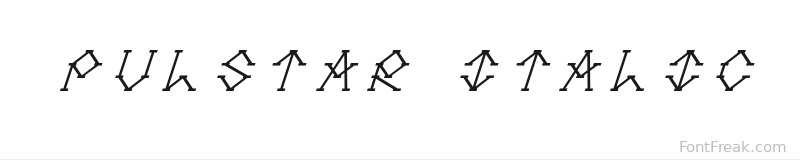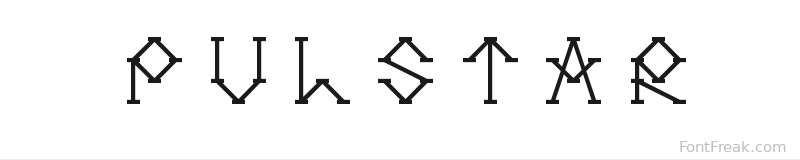
Pulstar
Pulstar Italic
Pulstar, designed by GGBot, is a striking display font that combines modernity with a unique flair. As a decorative typeface, it is characterized by its bold strokes and geometric forms, making it an eye-catching choice for various design applications. The font features a medium stroke weight with subtle contrast, giving it a robust yet elegant appearance. Its spacing is well-balanced, ensuring legibility while maintaining a dynamic visual impact. The italic style adds an additional layer of sophistication, perfect for projects that require a touch of creativity and movement.
This versatile font is ideal for a range of use cases. Graphic designers can utilize the Pulstar font for vibrant movie posters, where its distinctive style can draw attention and evoke emotion. Small business owners might find it perfect for branding materials, such as logos and business cards, that need to stand out in a competitive market. Additionally, content creators can use Pulstar for eye-catching social media graphics or promotional materials, enhancing their visual storytelling. Wedding planners may even consider it for elegant invitations, as its decorative elements convey a sense of celebration and joy.
What sets Pulstar apart is its ability to blend contemporary aesthetics with practicality, ensuring that it serves both visual and communicative purposes effectively. For anyone looking to elevate their design projects, a Pulstar font free download can be the key to unlocking a new level of creativity. This font is not just a typeface; it’s a statement.